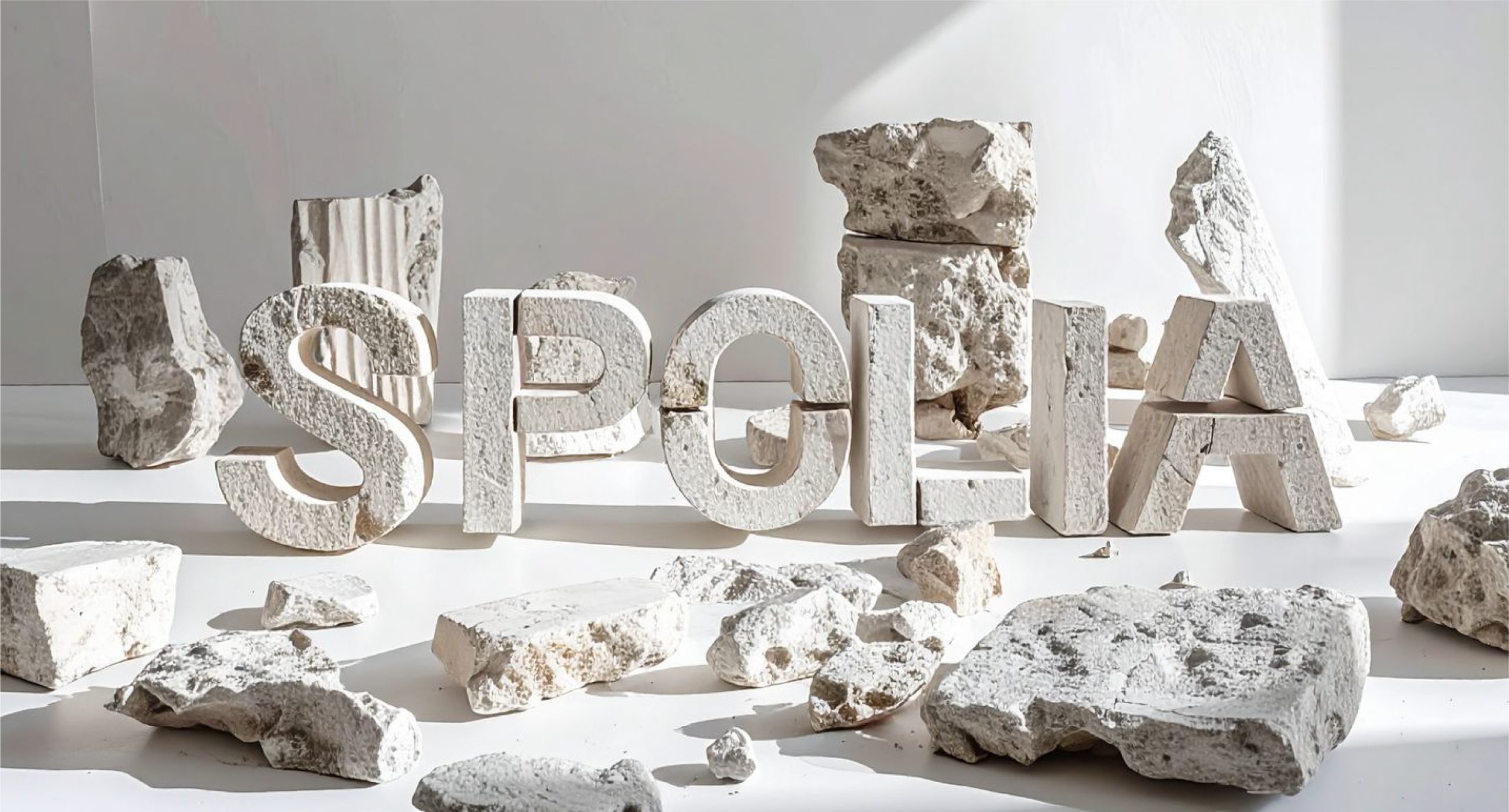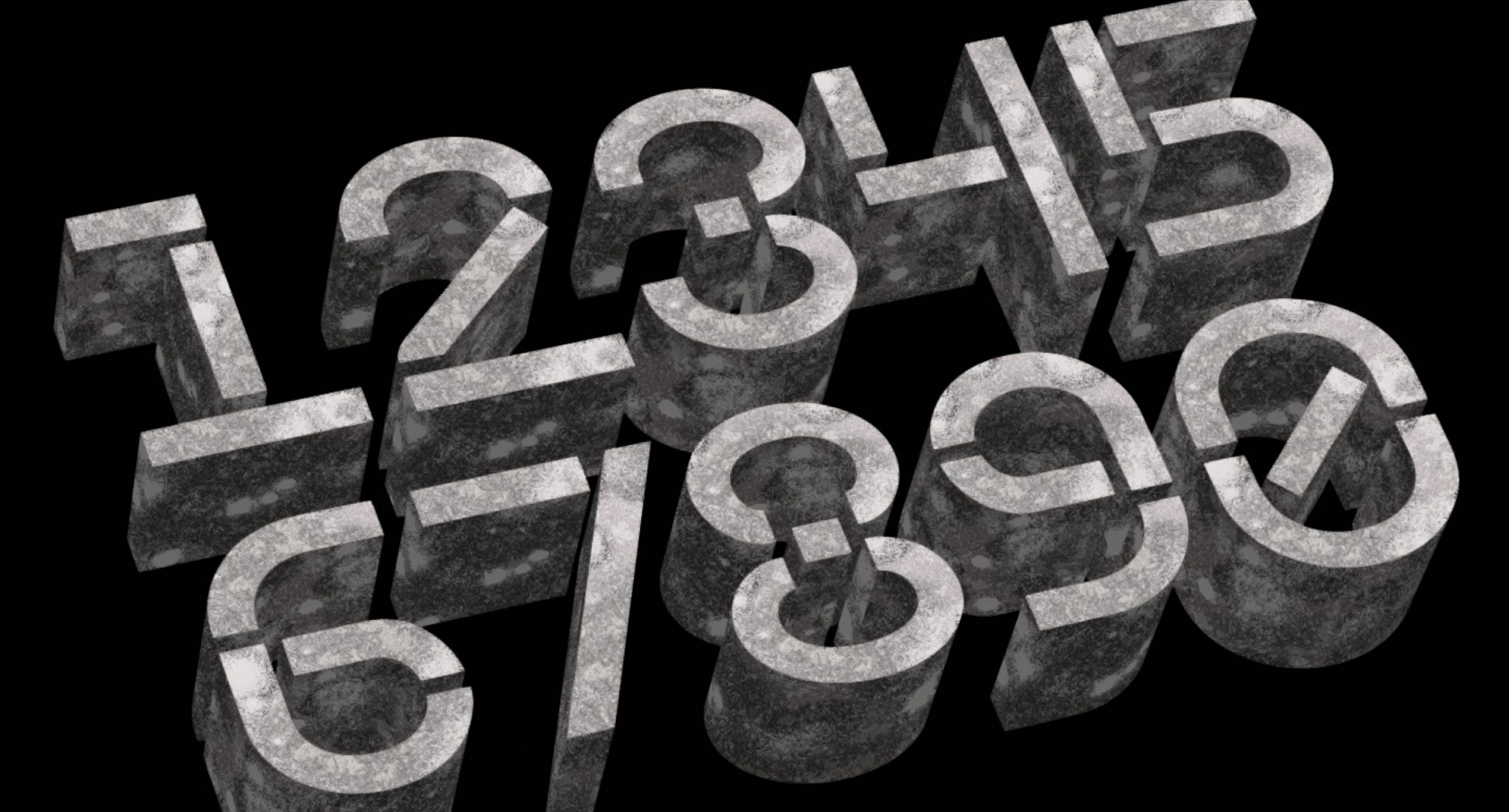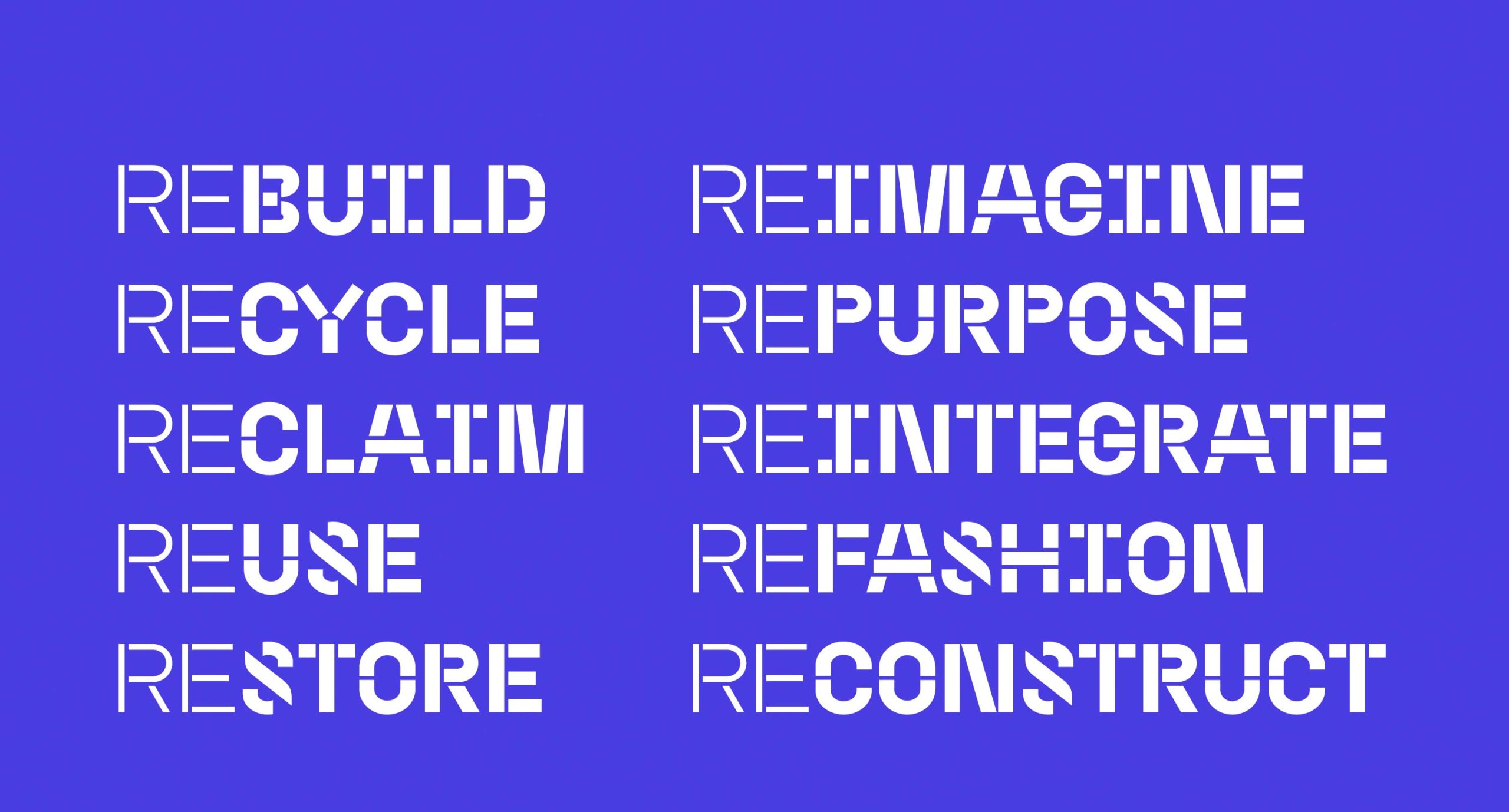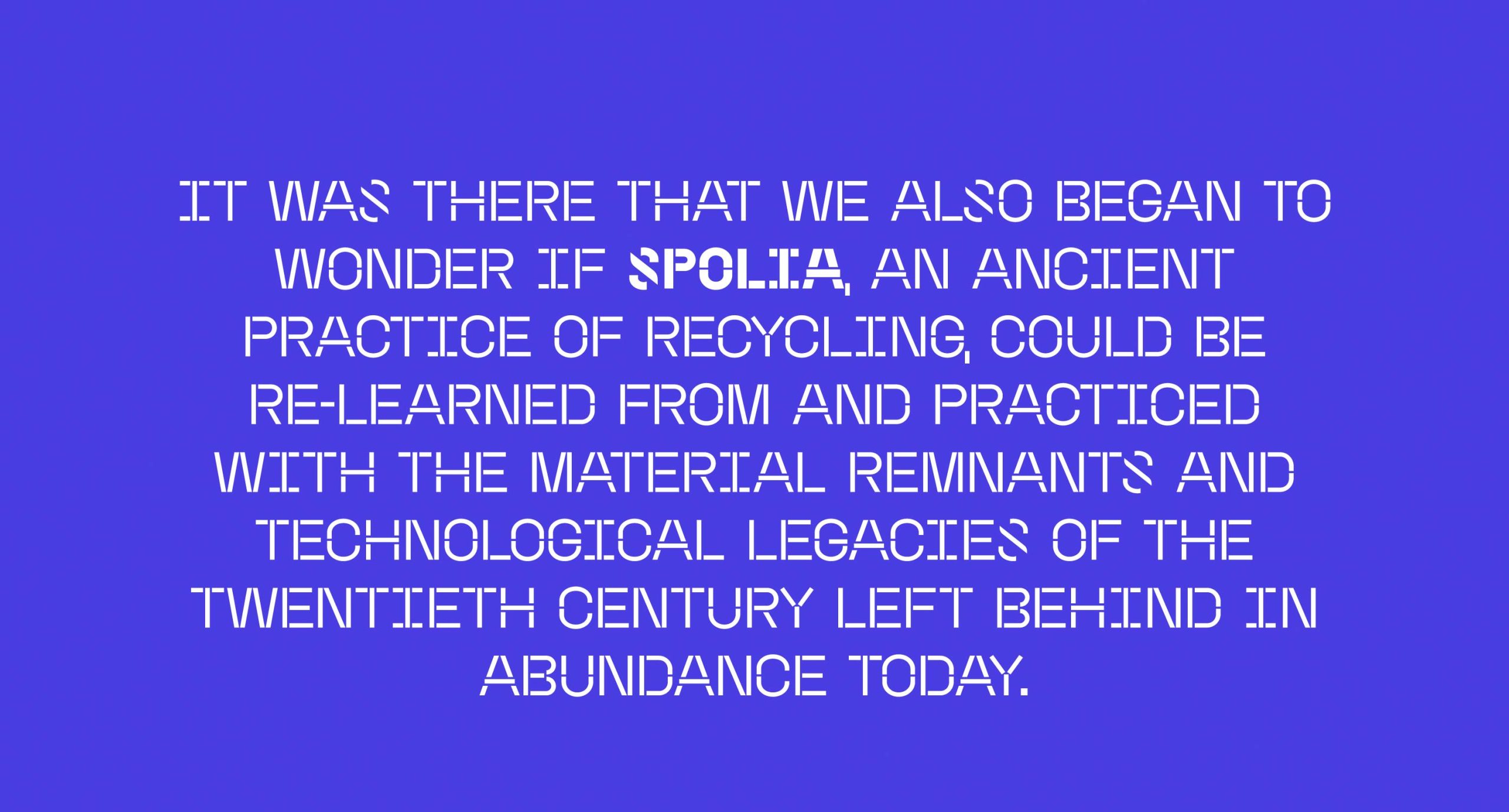
Spolia
John Kudos
Jamus Marquette
Spolia is a typeface inspired by the ancient Roman practice of reusing stones from old structures in new ones. In contrast to today’s fast, disposable production, Spolia repurposes shapes and components to bring modernity to otherwise forgettable forms.